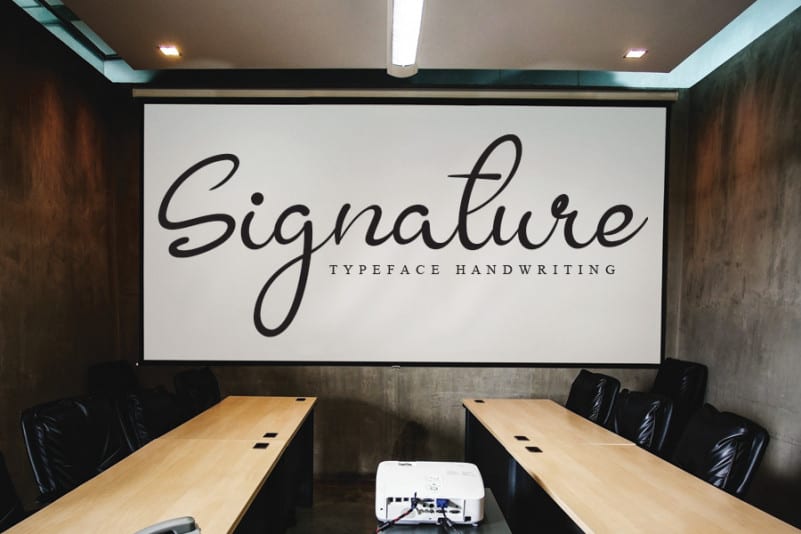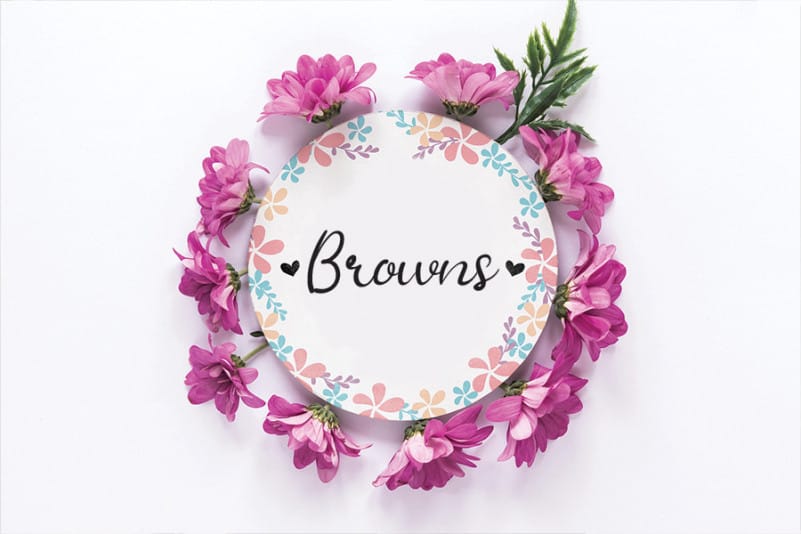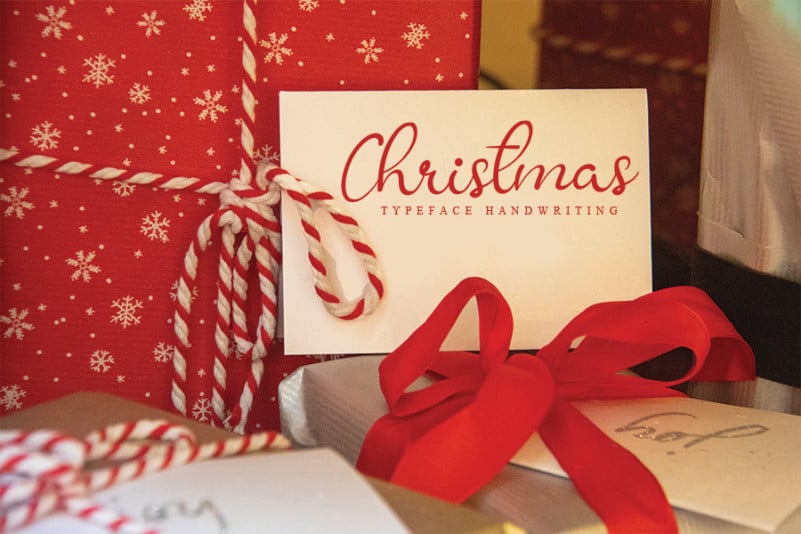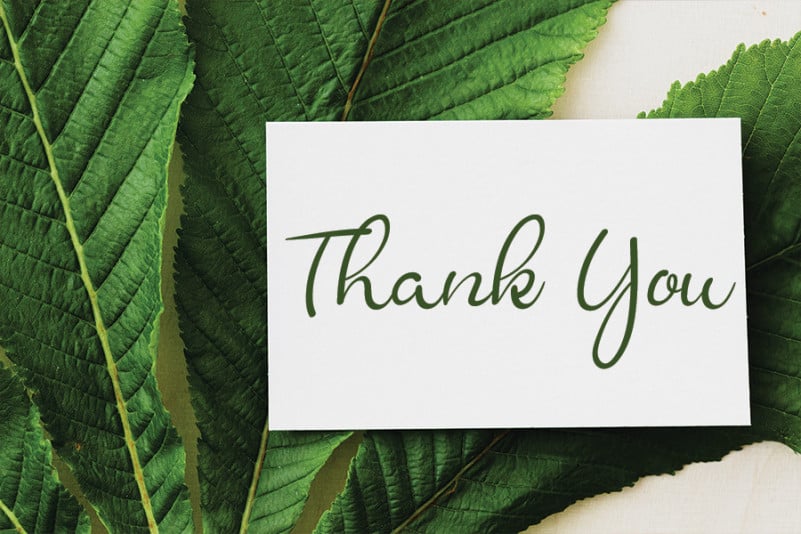
Corpse Flower Font
Corpse Flower Font is a sweet and versatile handwritten font. Its distinct and well rounded letters make this font a masterpiece. Fall in love with its casual style and use it to create spectacular designs!